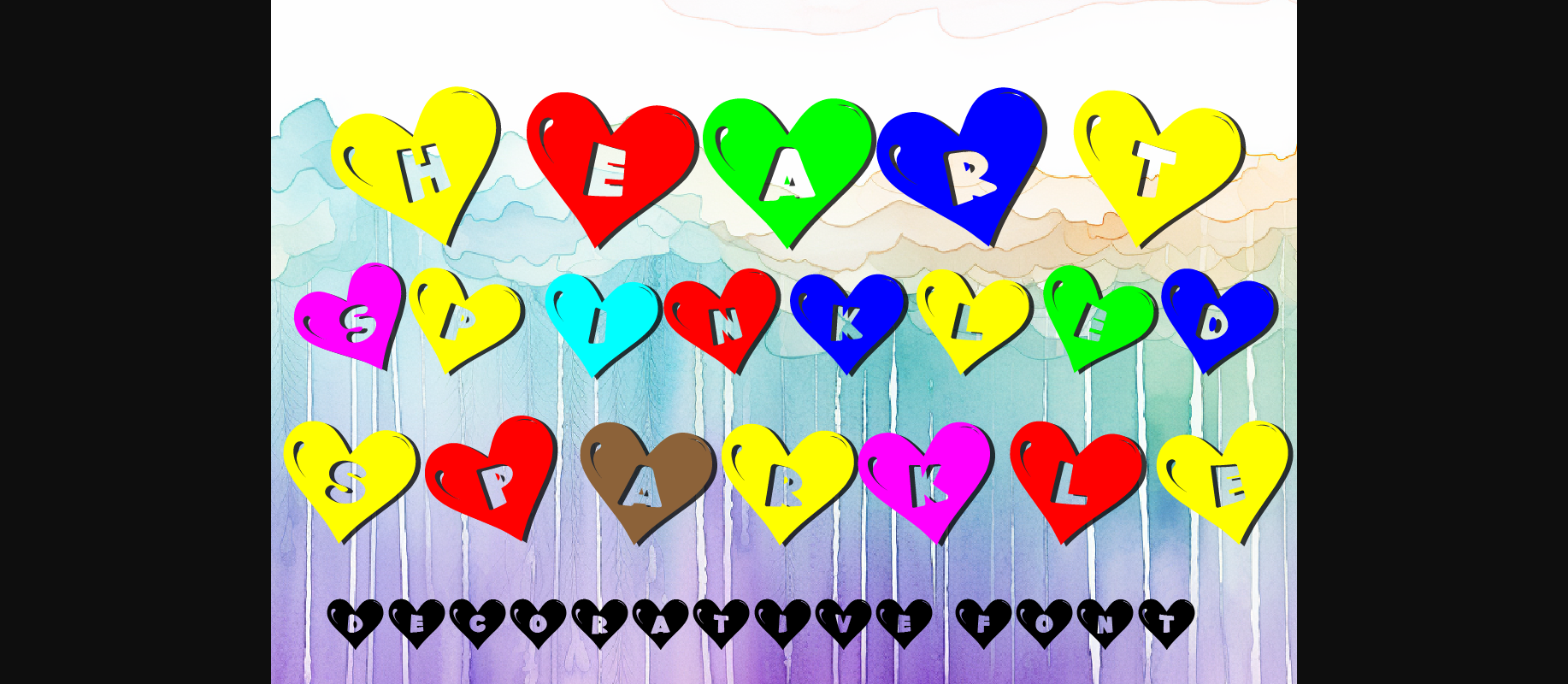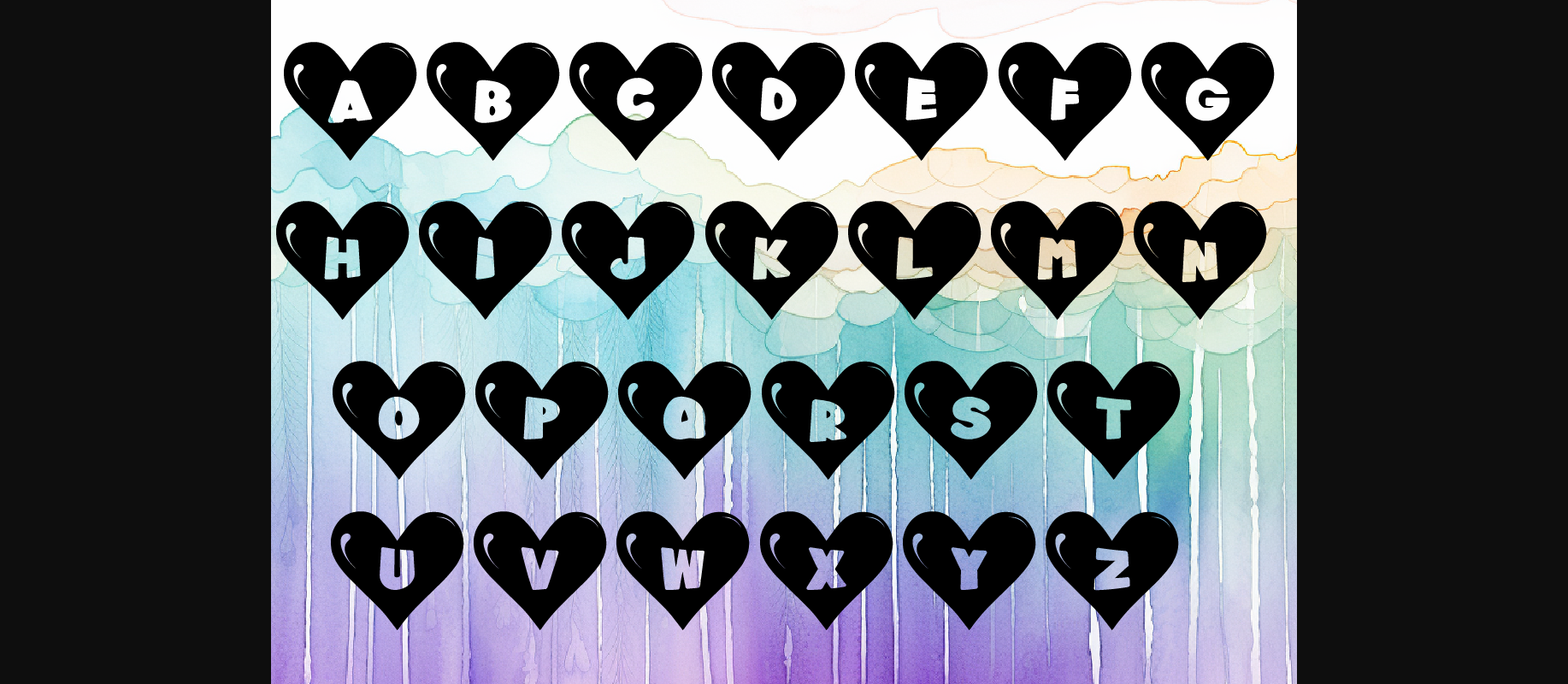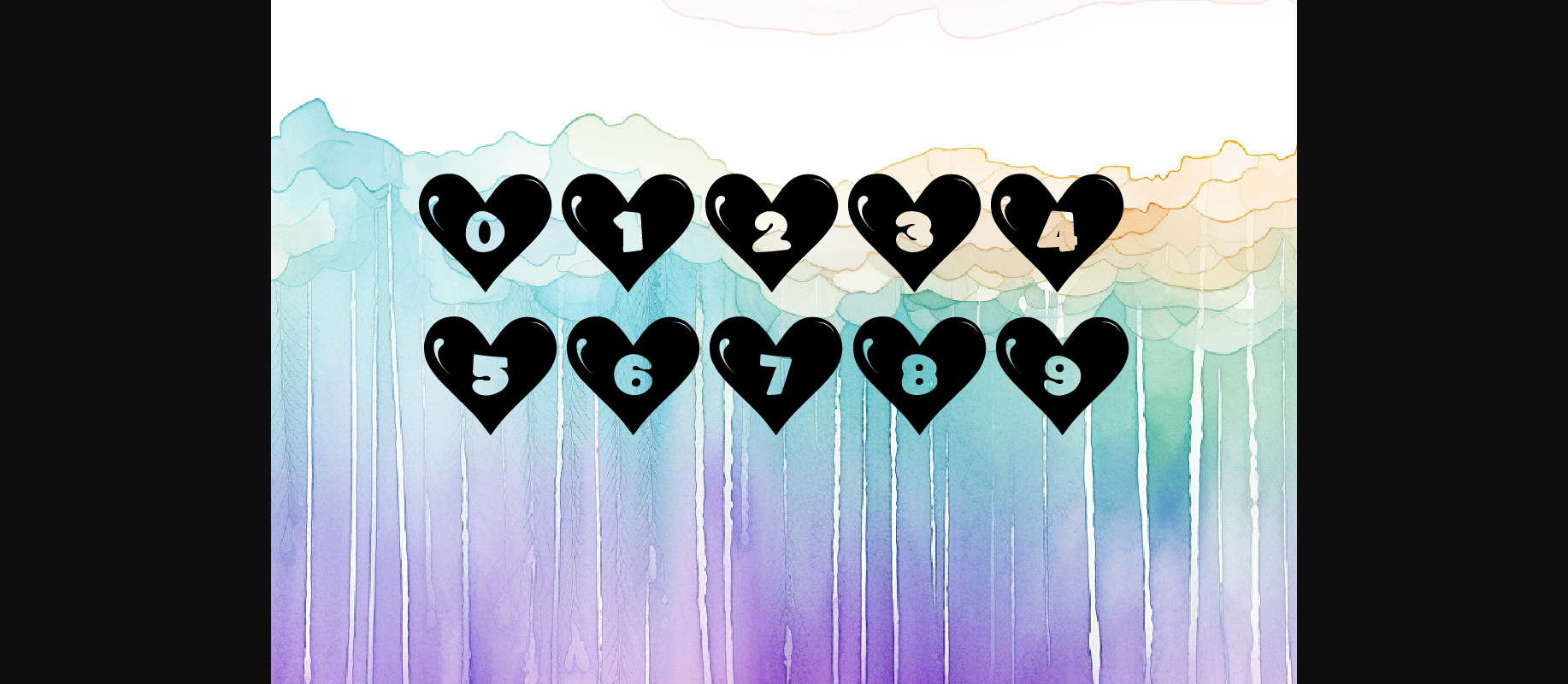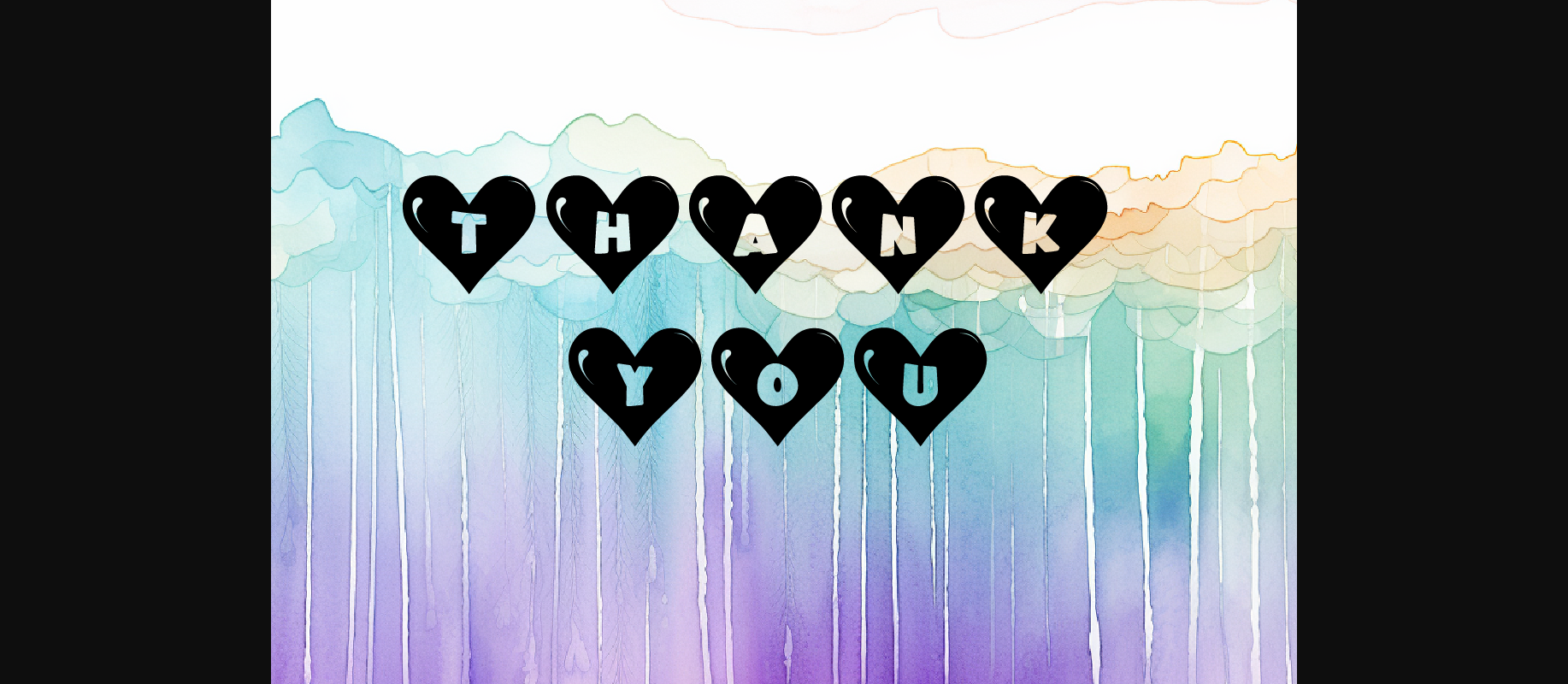
Heart Sprinkled Sparkle Font
About Heart Sprinkled Sparkle Font
Introducing Heart Sprinkled Sparkle Decorative Font, a delightful typeface that brings the essence of love and joy to your designs! With a total of 36 characters, including 26 uppercase and 10 lowercase letters, this font adds a charming heart-shaped sprinkle effect to any project. Perfect for creating logos, headlines, posters, and more, Heart Sprinkled Sparkle Decorative Font will infuse your designs with love and positivity. Spread happiness and sparkle with this enchanting font!